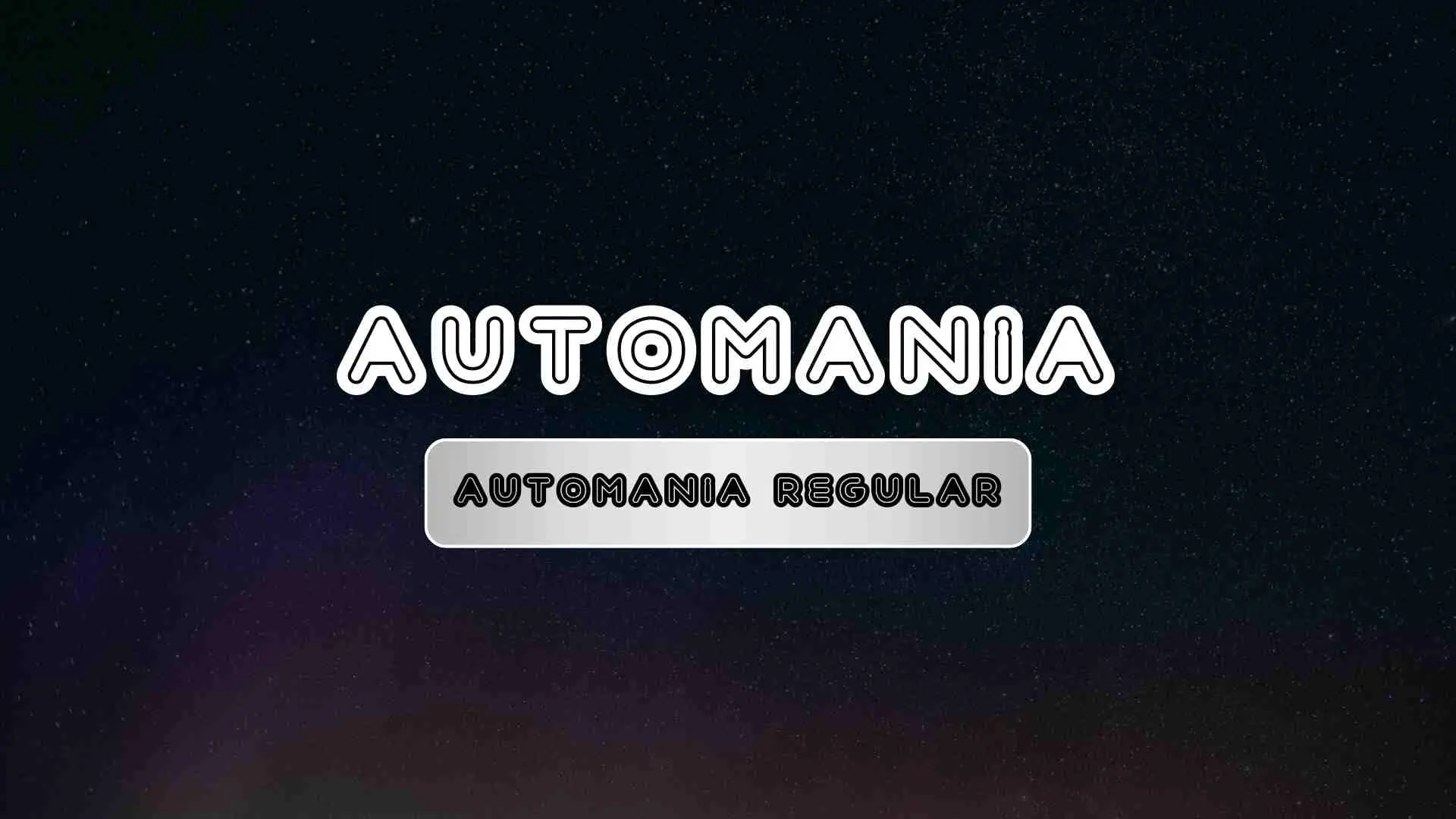
The font Automania Regular, designed by Fenotype, falls under the Display category & Automania font family. Its smooth, flowing letterforms make it a versatile choice for projects that require both elegance and readability. Automania is particularly well-suited for Branding, Logo, Poster, Event flyers, Neon Simulation and Retro/Vintage Design. With its balance of simplicity and decorative appeal, this font brings a polished touch to both personal and professional designs.